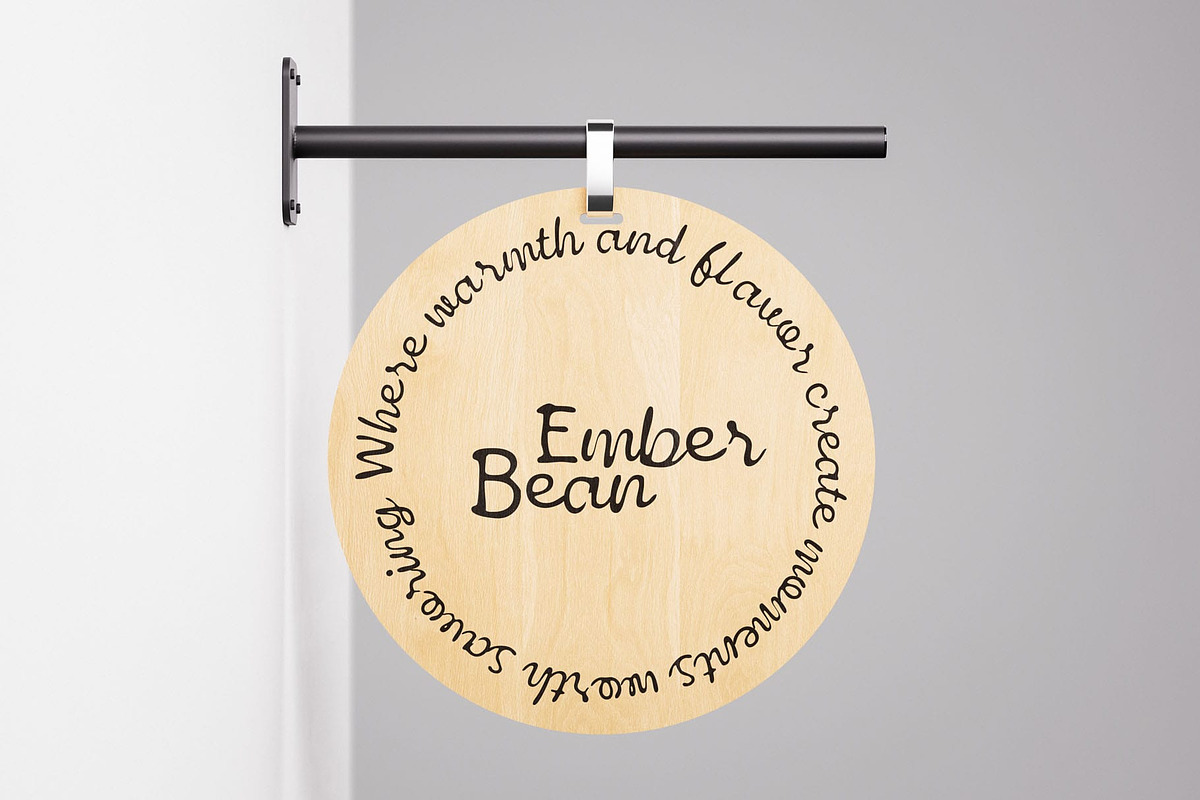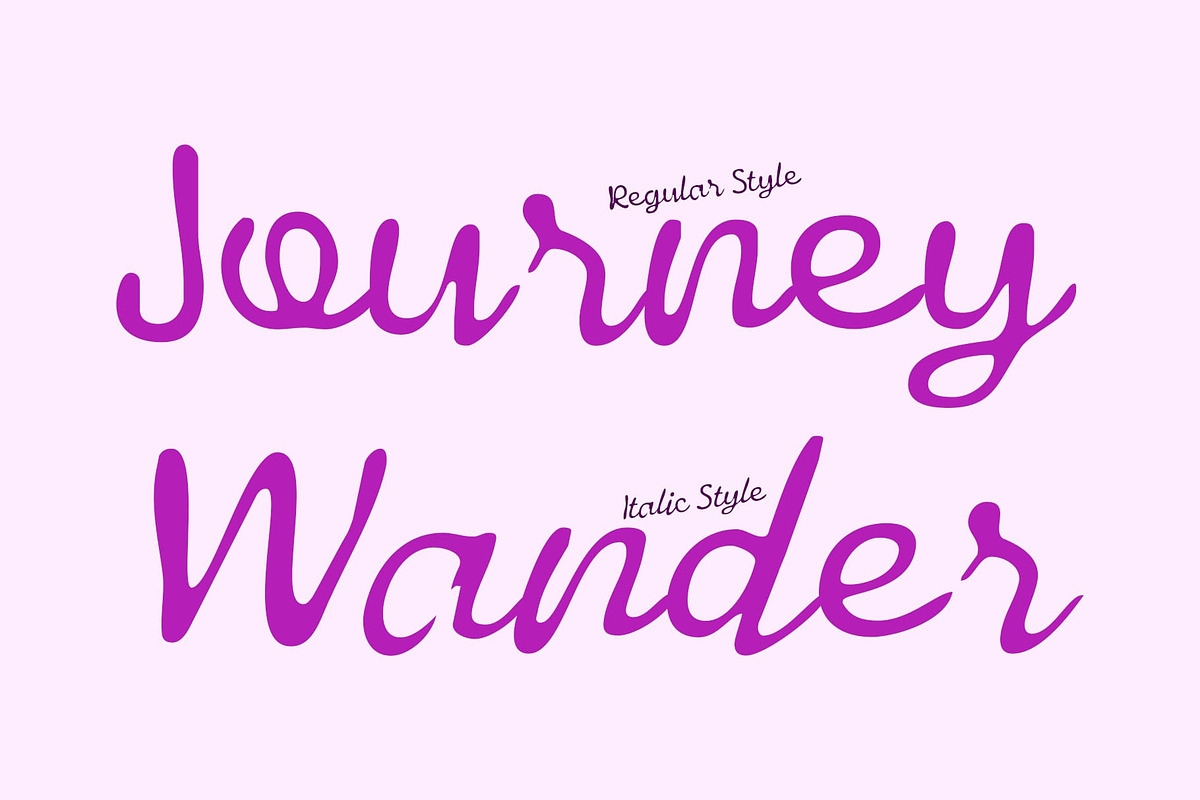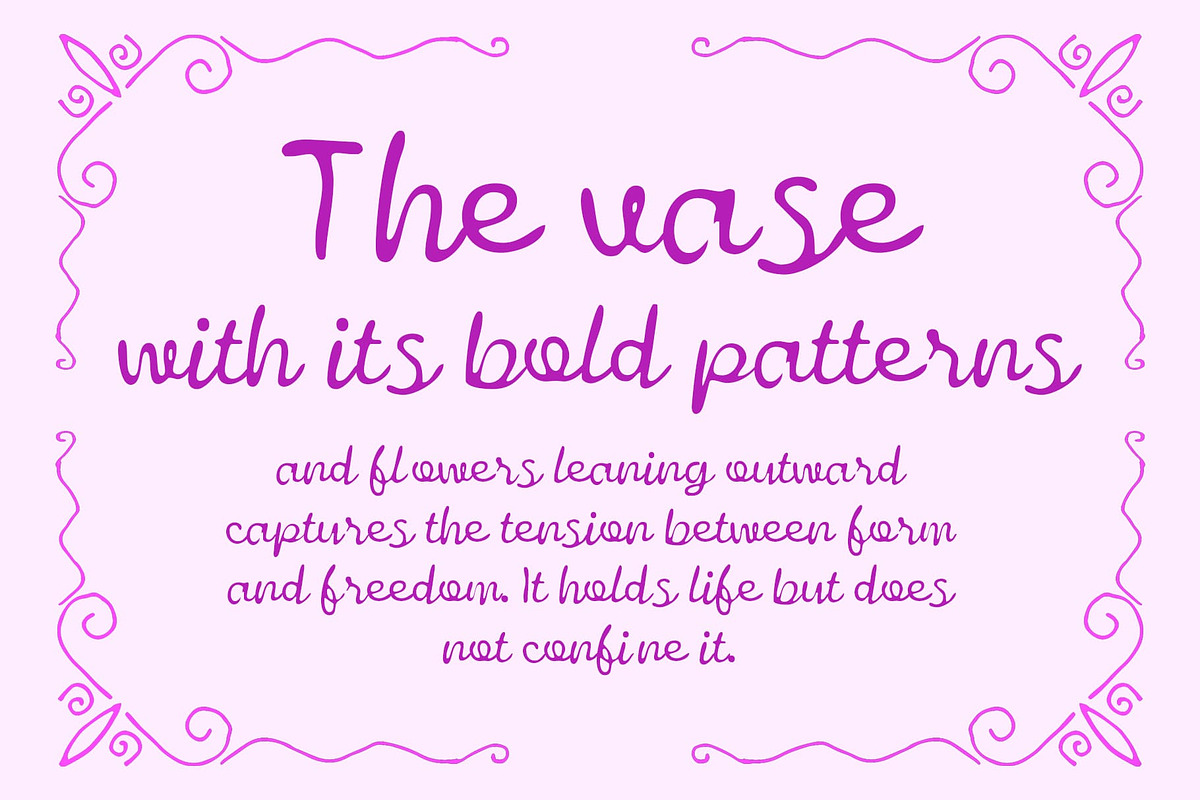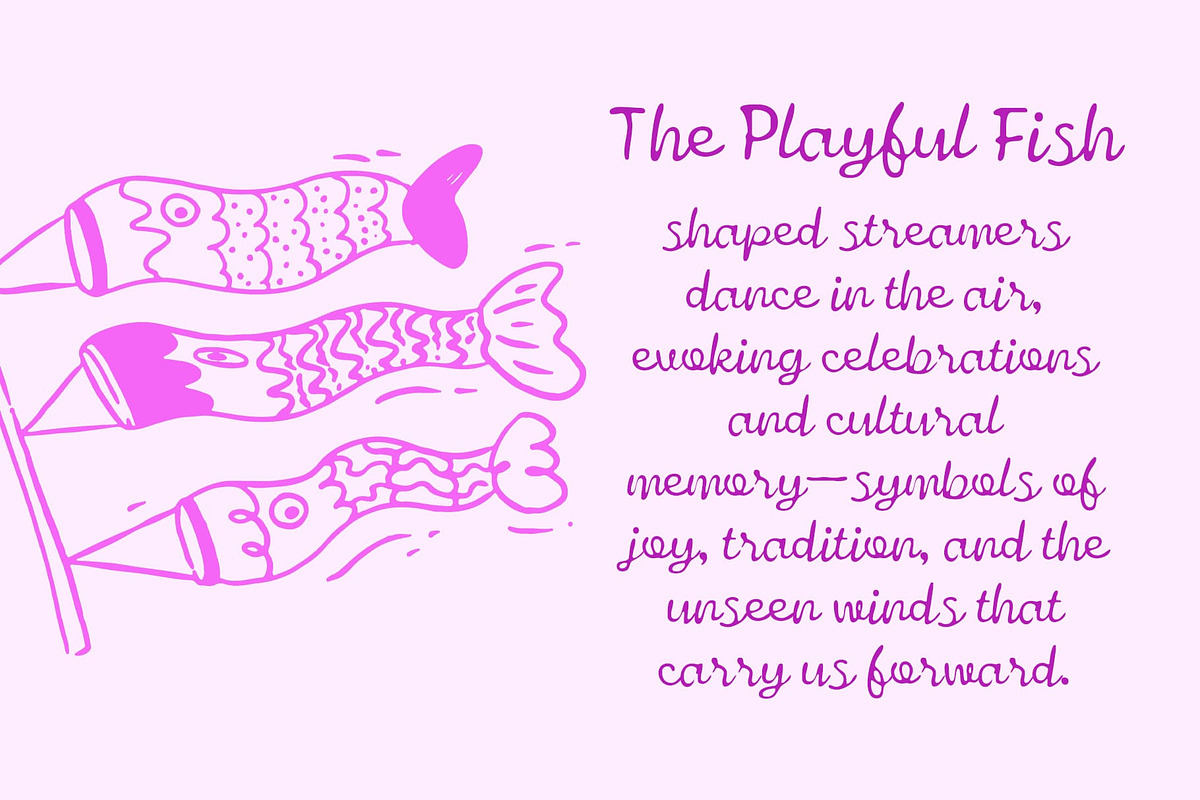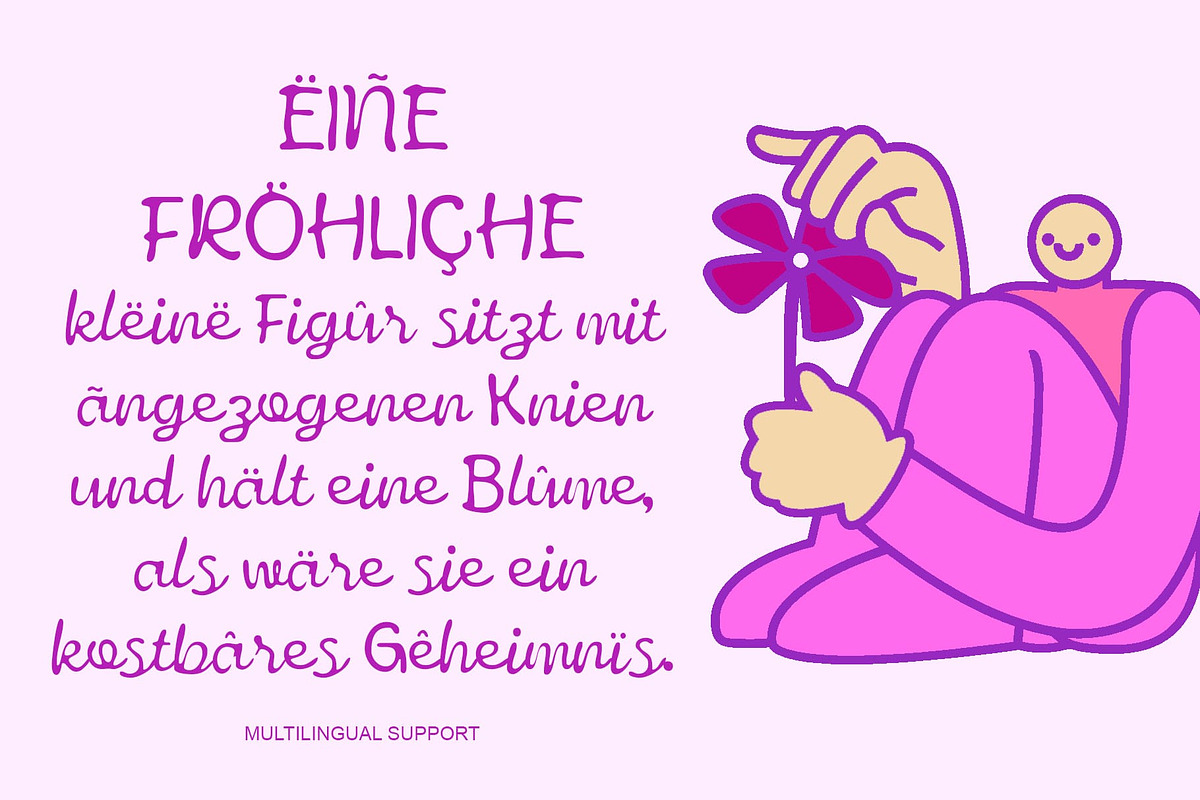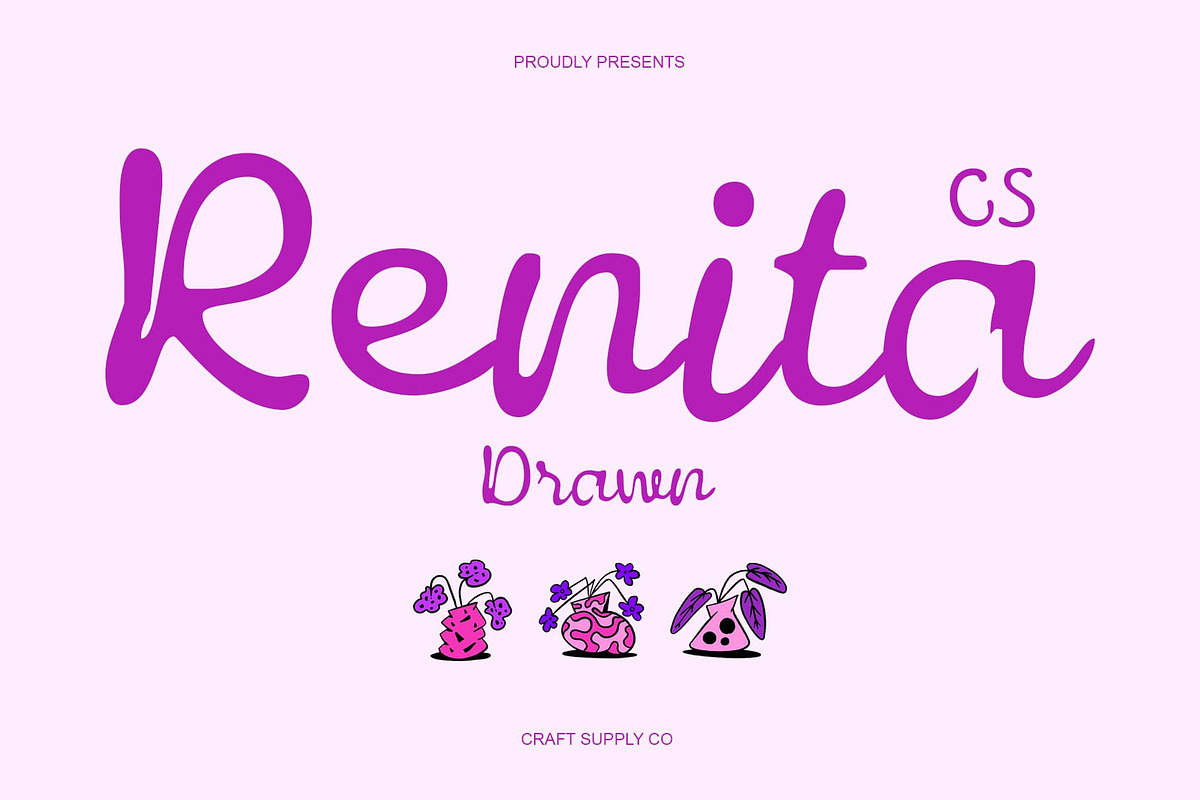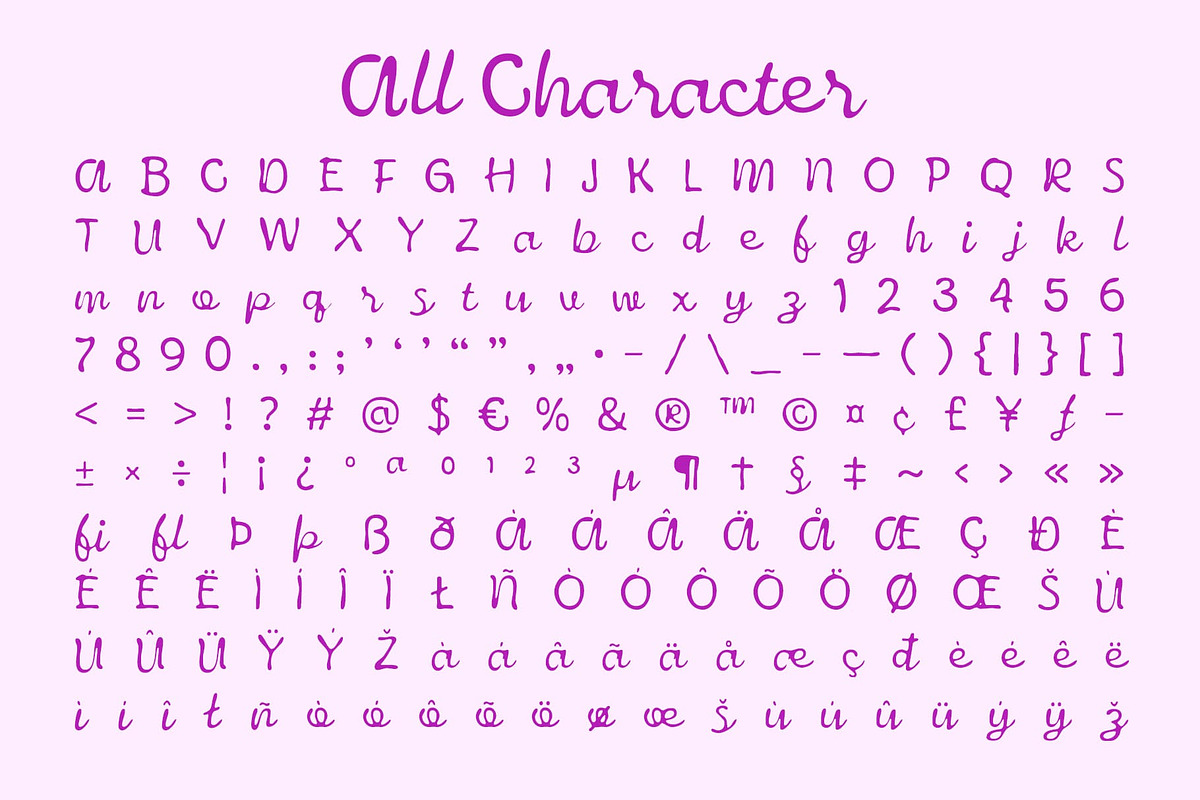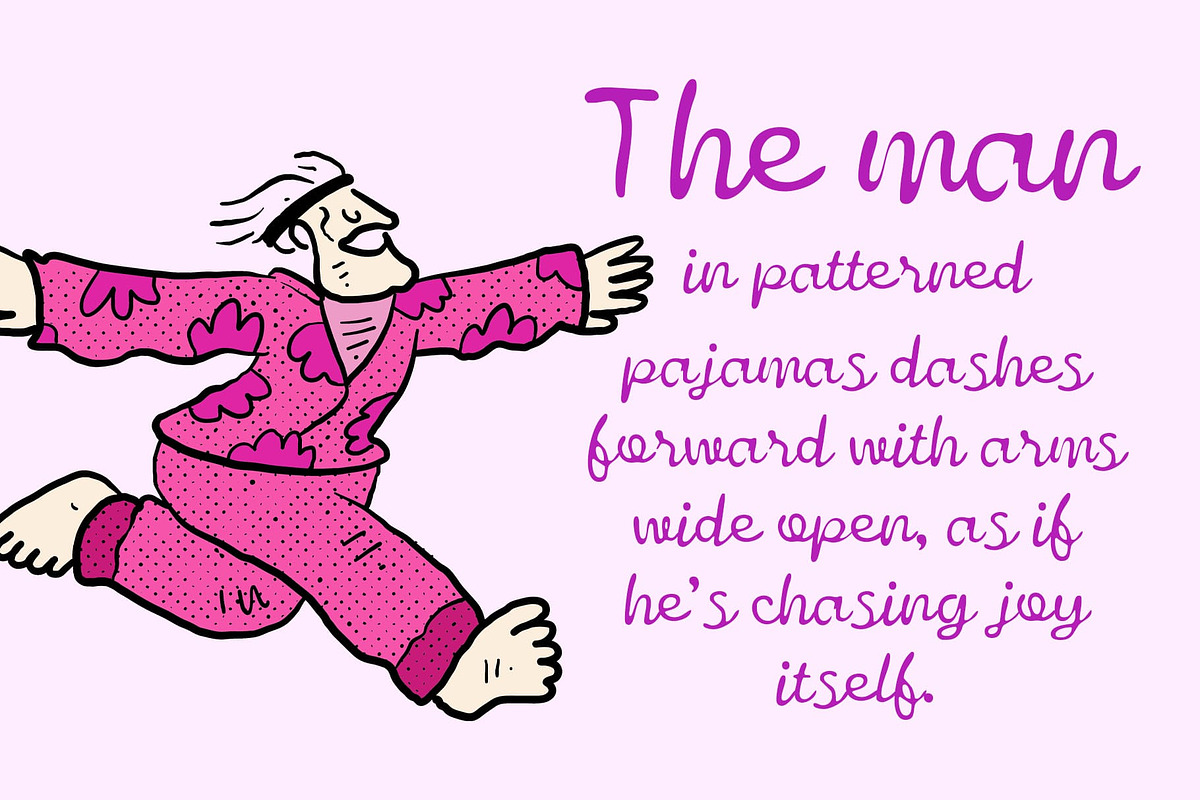
CS Renita Drawn
CS Renita Drawn – Script Font with Flowing Elegance: Timeless Style with Handcrafted Charm
Vintage Script Display Font This is a script font that embodies classic refinement. Its decorative curves and flowing letterforms bring a sense of elegance, perfectly suited for designs that aim to capture nostalgic beauty and timeless appeal.
Hand-Drawn Character Details The hand-drawn effect enhances the natural rhythm of each stroke, adding personality and artisanal charm. This handmade touch softens the structure of the script, giving it warmth and authenticity that sets it apart from standard digital fonts.
Perfect for Retro and Nostalgic Designs Whether used in retro posters, bar menus, or nostalgic branding, this font delivers expressive character. Its decorative flourishes and graceful movement make it ideal for creating designs that feel both artistic and memorable.
Elegance That Endures Balancing vintage sophistication with hand-drawn artistry, this font more than just a script font it’s a design tool that carries emotion, history, and charm. Ideal for projects that seek to blend heritage with creativity, it ensures your typography makes a lasting impression.